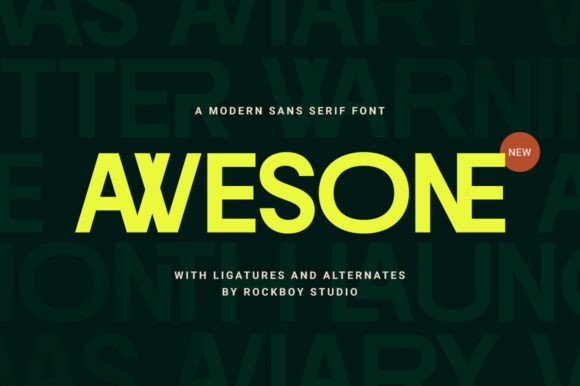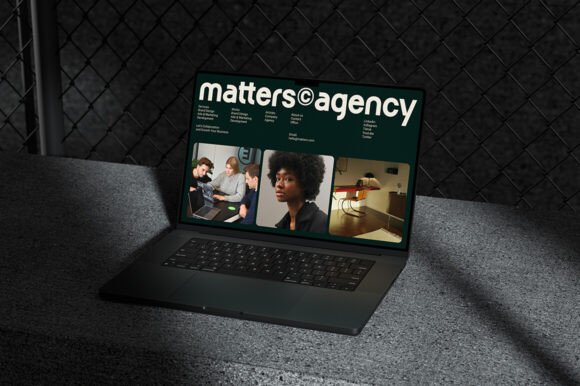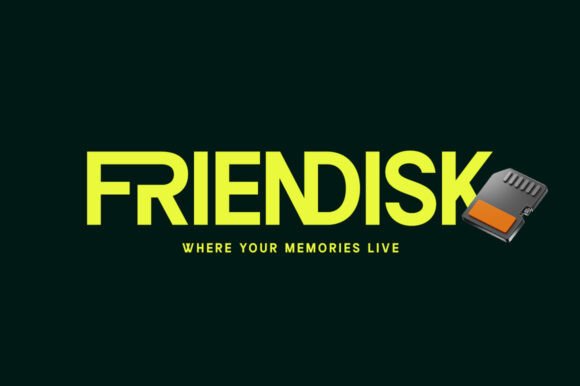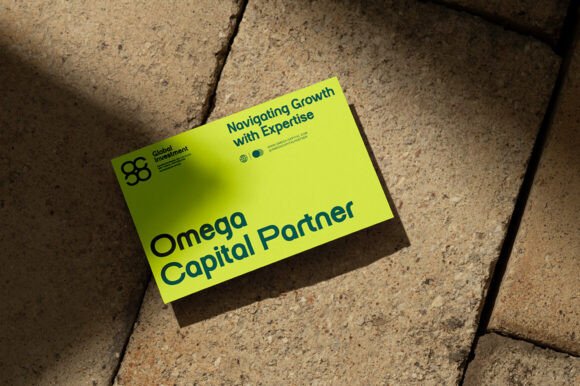
Awesone Font: A Bold Sans Serif for Modern Branding & Logo Design
About the Awesone Font
Presenting Awesone Font, a unique and stylish typeface that will make your work stand out. Awesone is a sleek and modern sans serif typeface that merges bold style with clean lines for a contemporary look. Crafted for maximum versatility, it’s perfect for eye-catching headlines, branding projects, website headers, and more.
Its strong, geometric forms make Awesone ideal for headlines, logos, and short, impactful marketing materials. It excels in branding projects requiring a modern and confident aesthetic, particularly for technology, finance, or luxury goods. However, its bold weight makes it less suitable for body text or extended reading; small sizes lose legibility.
Pairing Awesone effectively depends on the desired emphasis. For a sophisticated feel, consider a classic serif like Garamond or a clean, neutral sans-serif like Lato as a supporting text face. To highlight its boldness, a thin, elegant script like Allura can add a touch of contrast and visual interest. Avoid pairing it with other heavy or overly decorative fonts.
Awesone projects a bold, sophisticated, and contemporary personality. Its clean lines suggest efficiency and modernity, while its weight conveys authority and impact.